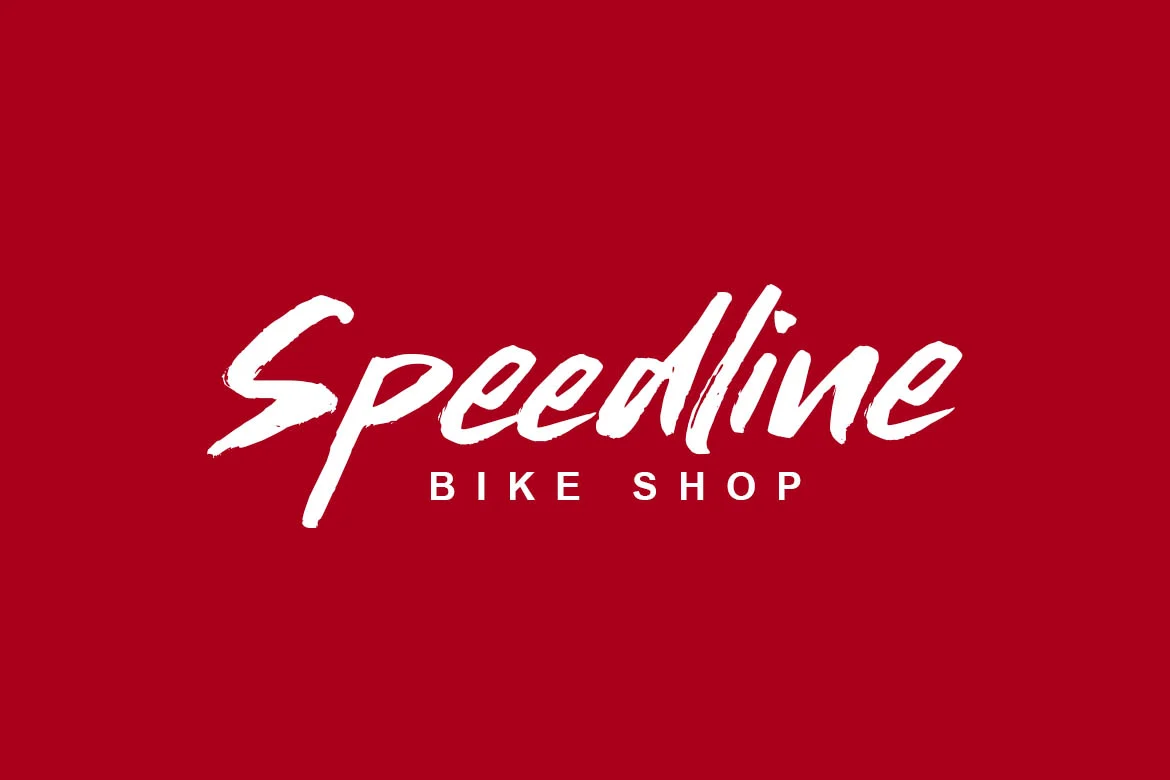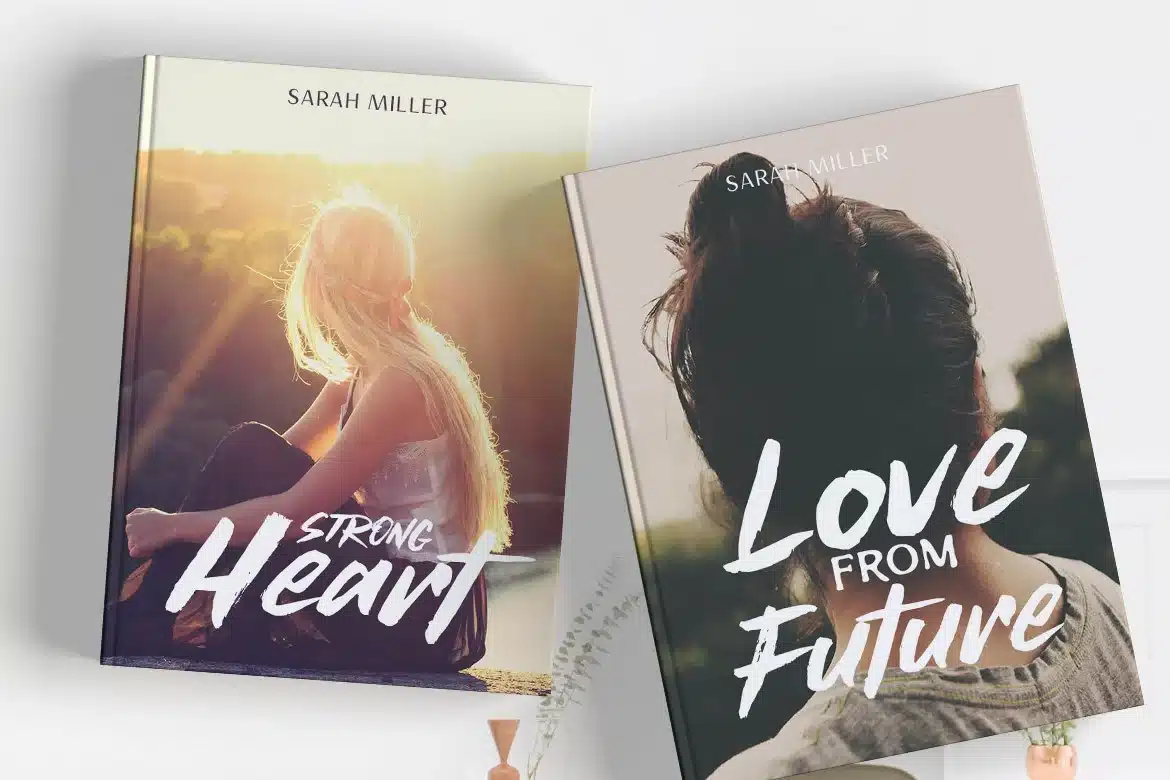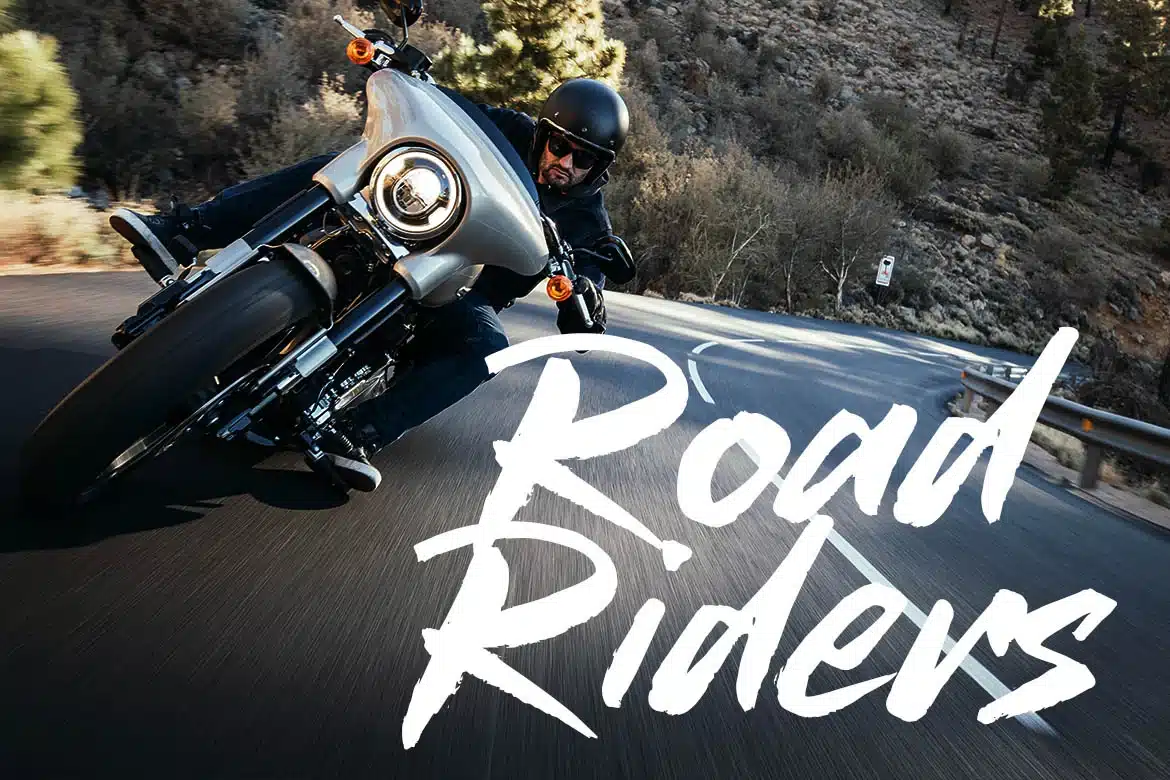
Good Face Font
This is cool brush font. Nowdays brushfont is most wanted font , specially in envato element. This font is perfect for any advertisement purpose, clothing, apparel, logo, and package